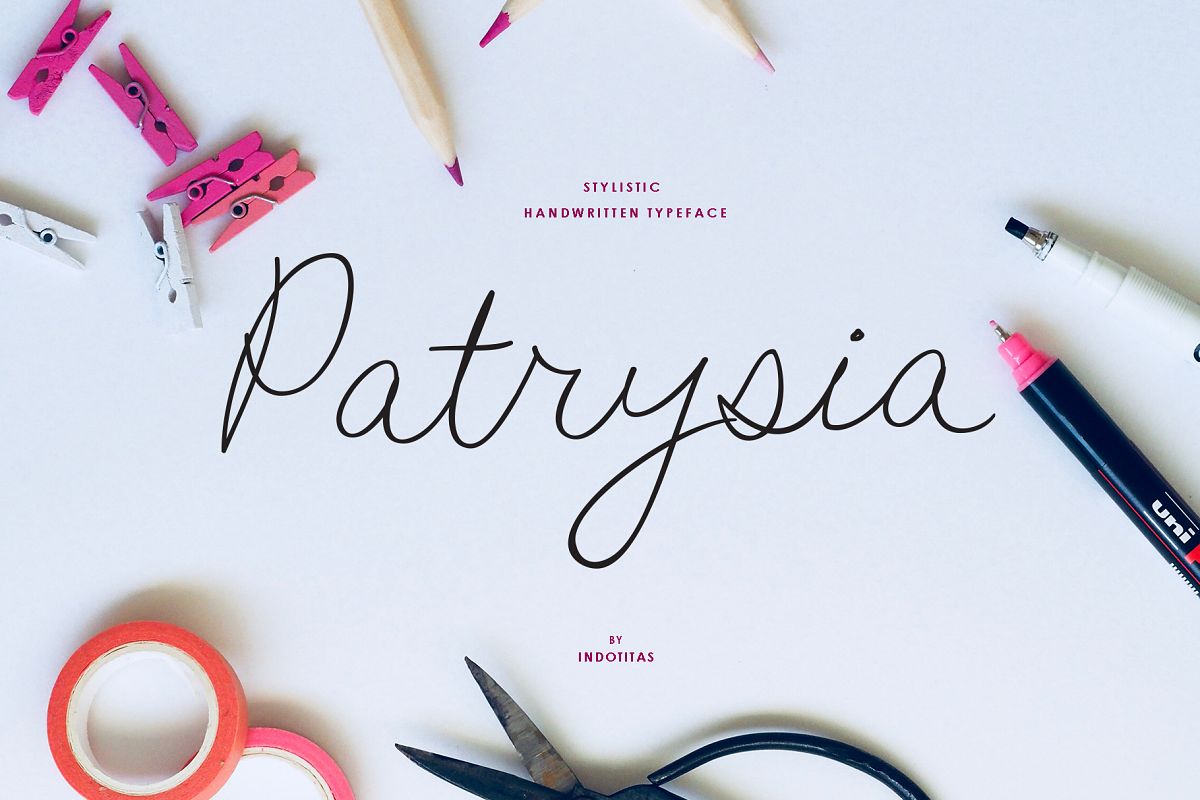
Patrysia
We presented our new great font, Patrysia
Patrysia created with modern stylistic handwritten characters. This stylistic handwritten font was PUA encoded. Patrysia is a simply handwritten style that comes with Extended Latin Characters.
Patrysia works perfectly for logos, display, product branding, wedding invitation card, stationary, packaging, clothing, flyer, apparel, magazines, brochures, lable, posters, badges, etc.Patrysia comes with 250 glyphs and 26 alternate characters contain with opentype features (supported with contextual alternates mode).
Patrysia also comes with 14 extended ligatures that allowing you to make stuff looks more exclusive and pro standard.
• Basic Latin A-Z and a-z
• Symbols
• Opentype Feature
• PUA Encoded
• Contextual Alternate
• Multingual Support